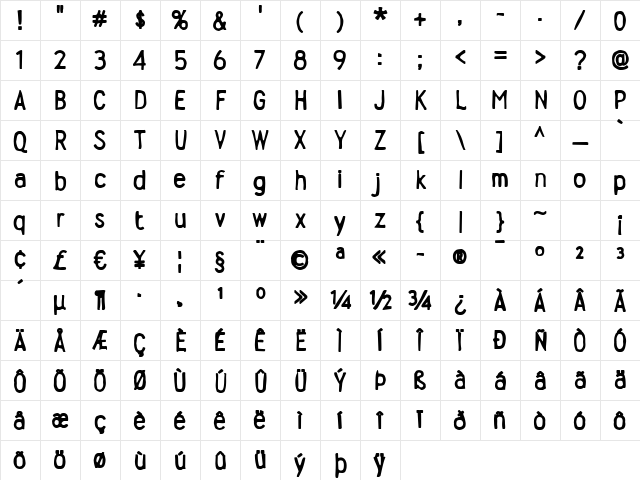
Wyvern Ink Regular Free Font
Wyvern Ink Regular
Foundry: Typodermic
Design Context for Wyvern Ink
Wyvern Ink is a composed and adaptable typeface that performs quietly and consistently across a wide range of design contexts.